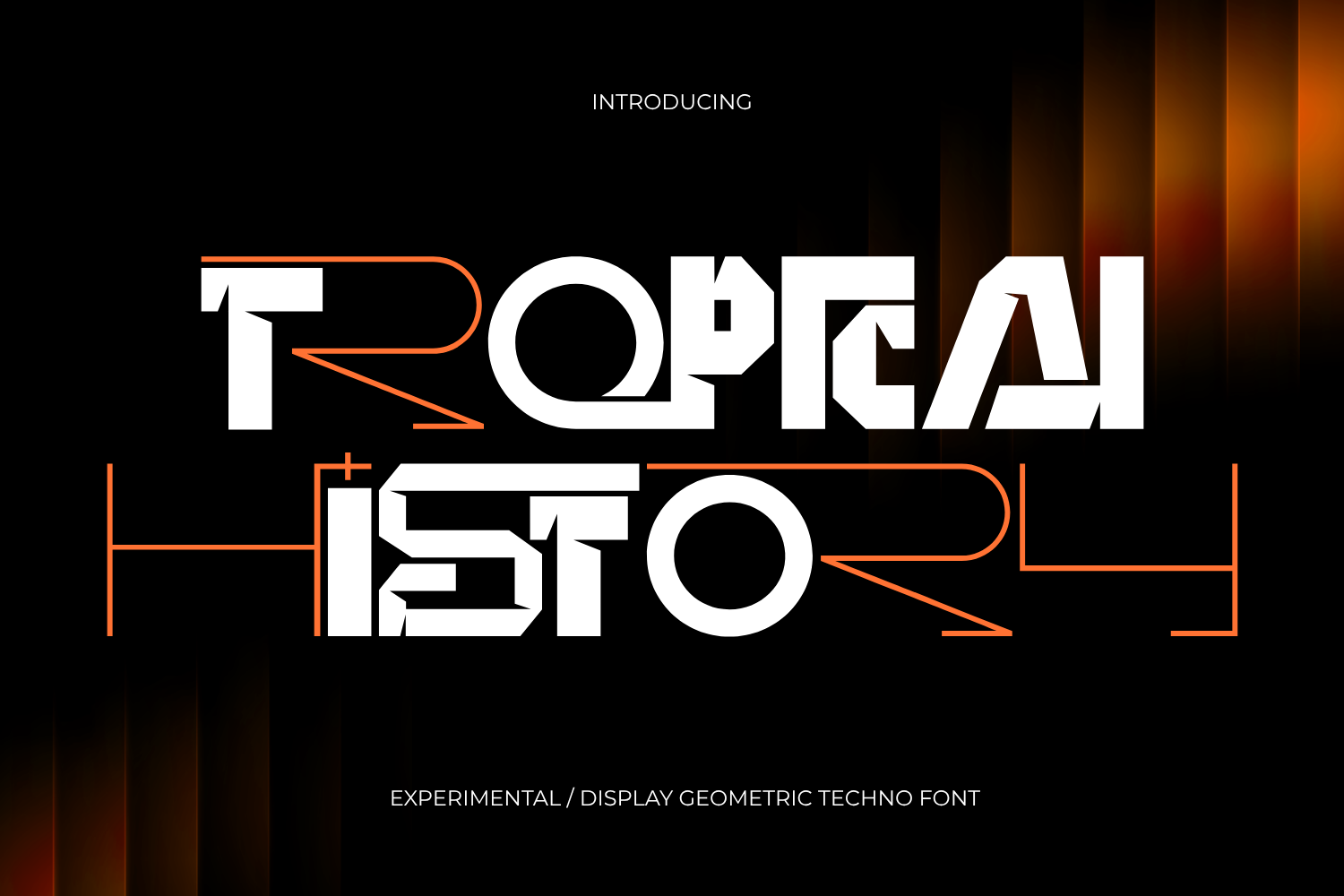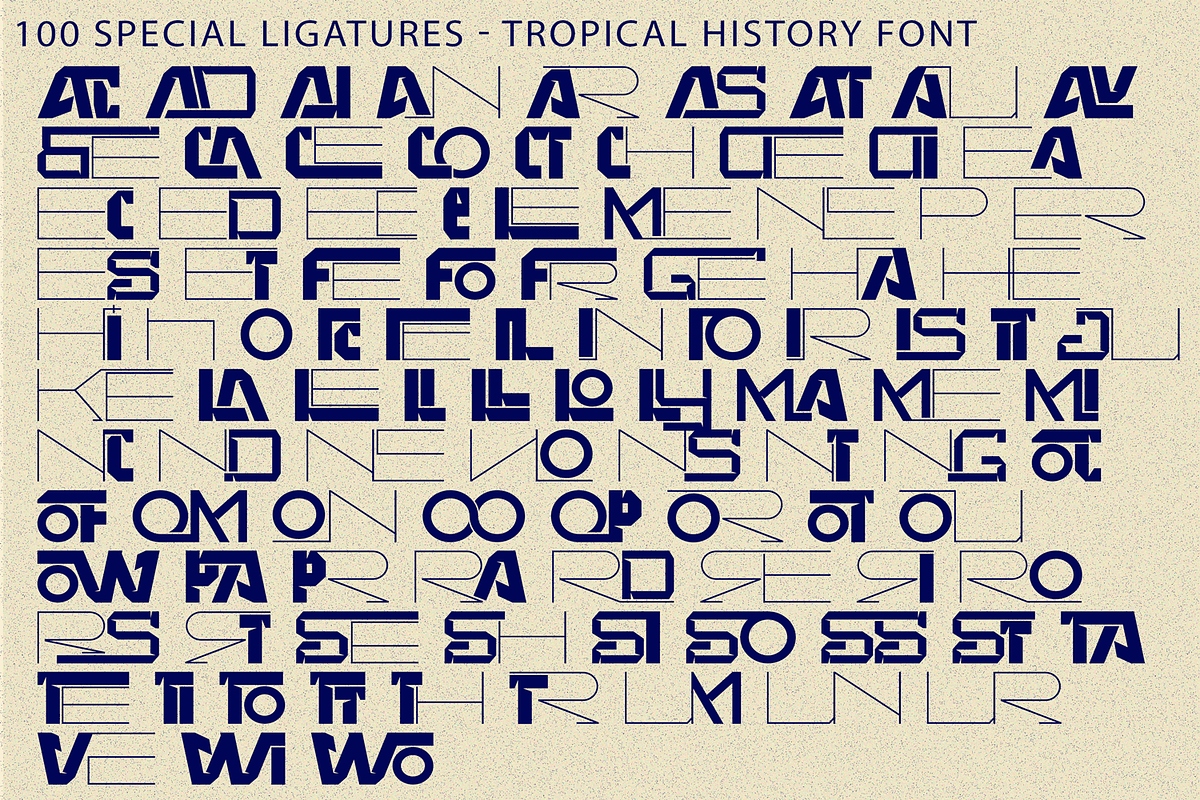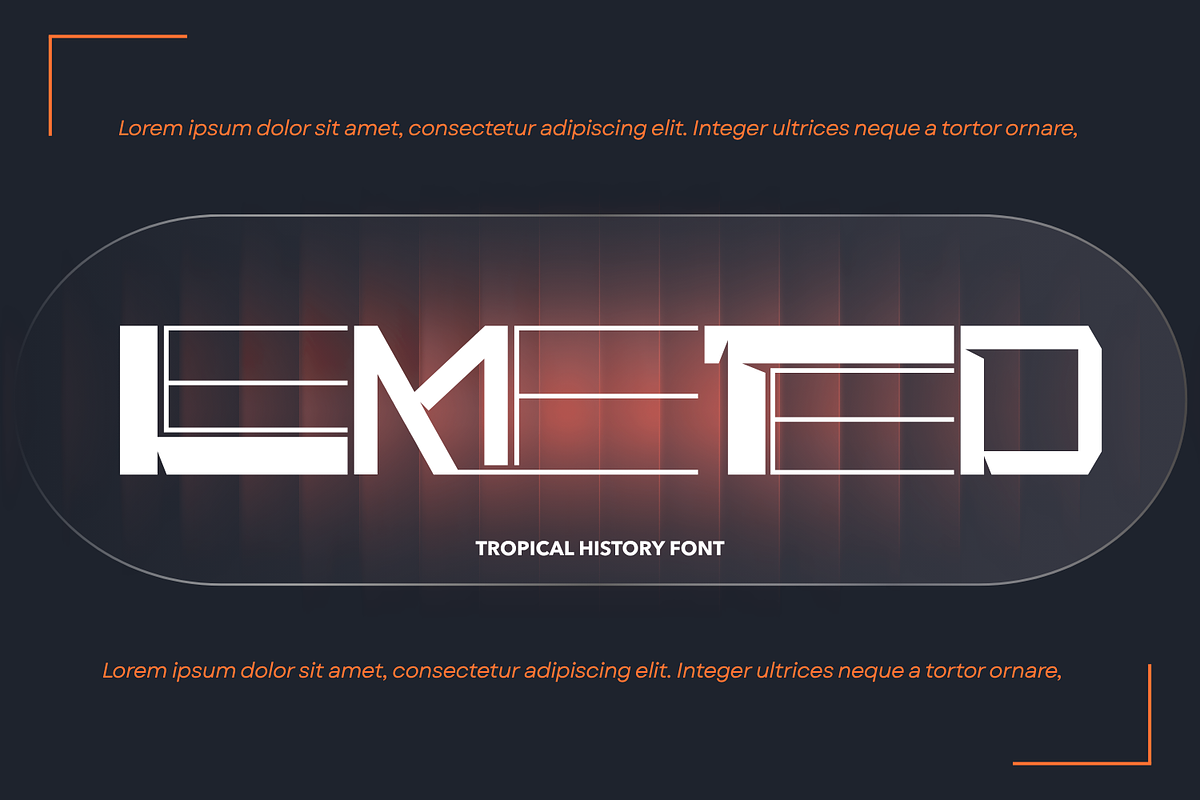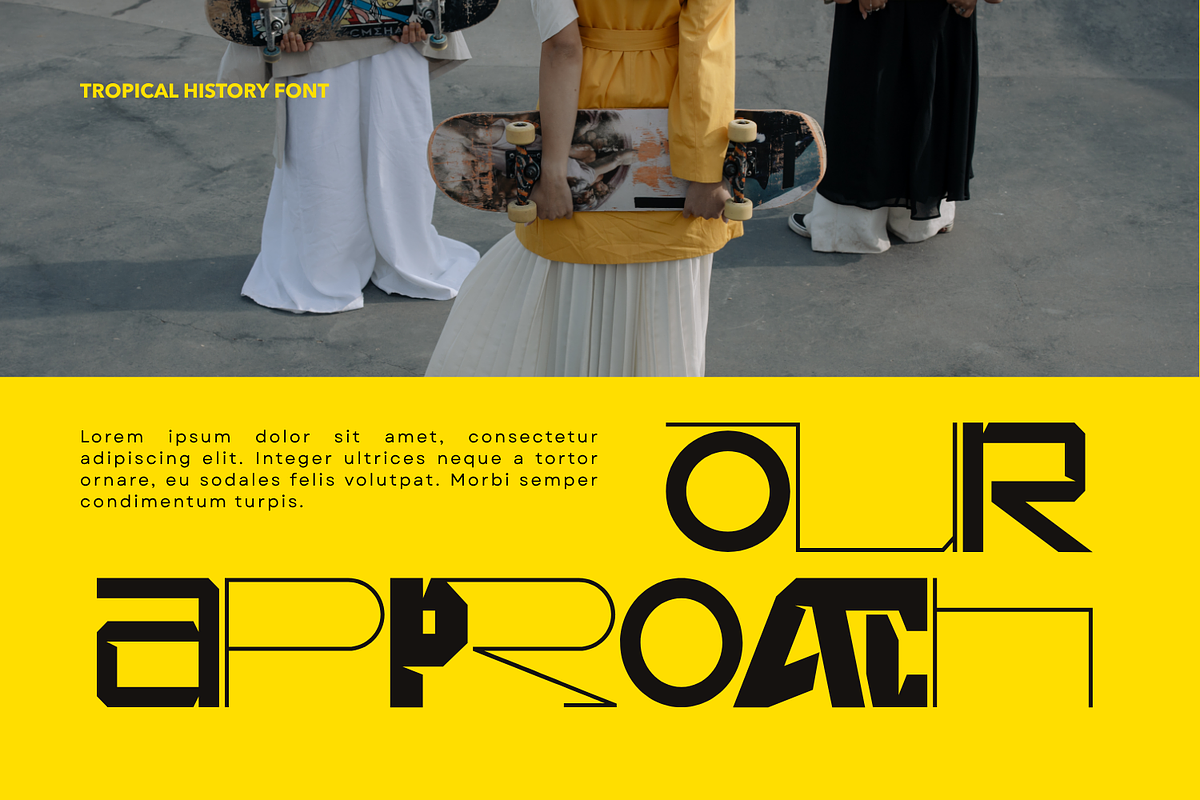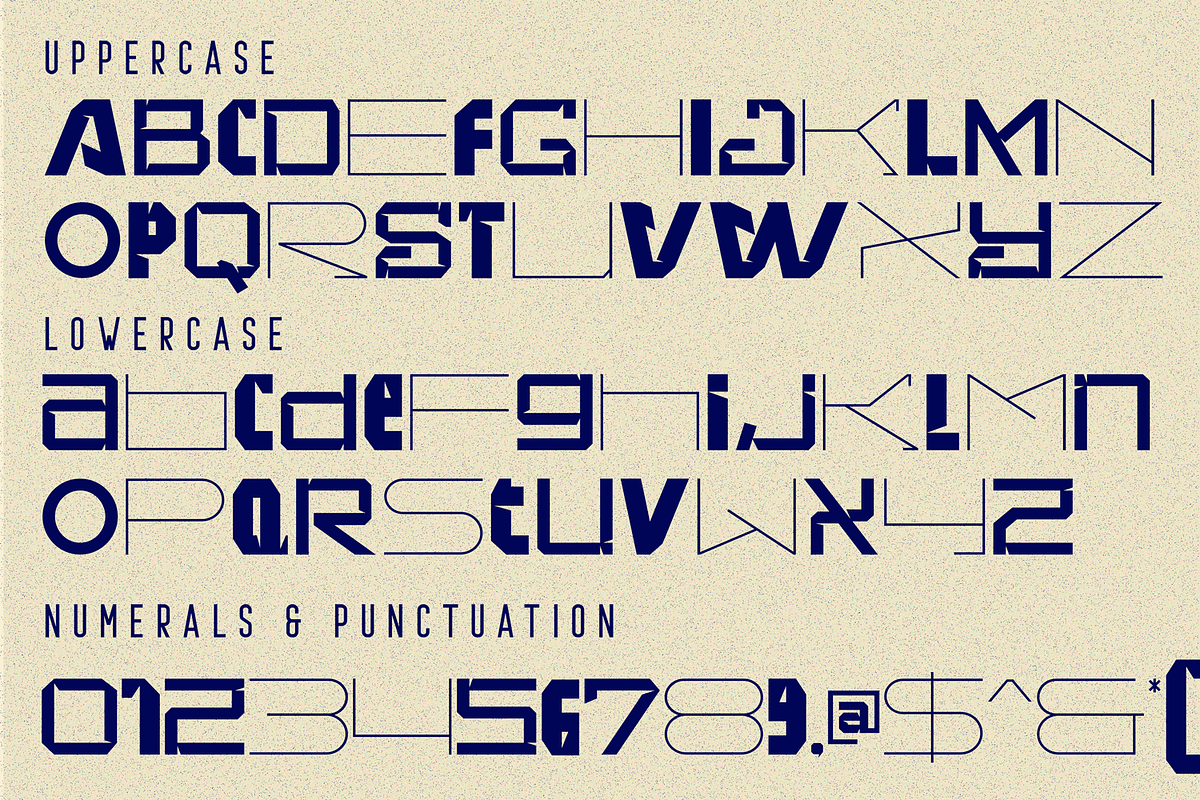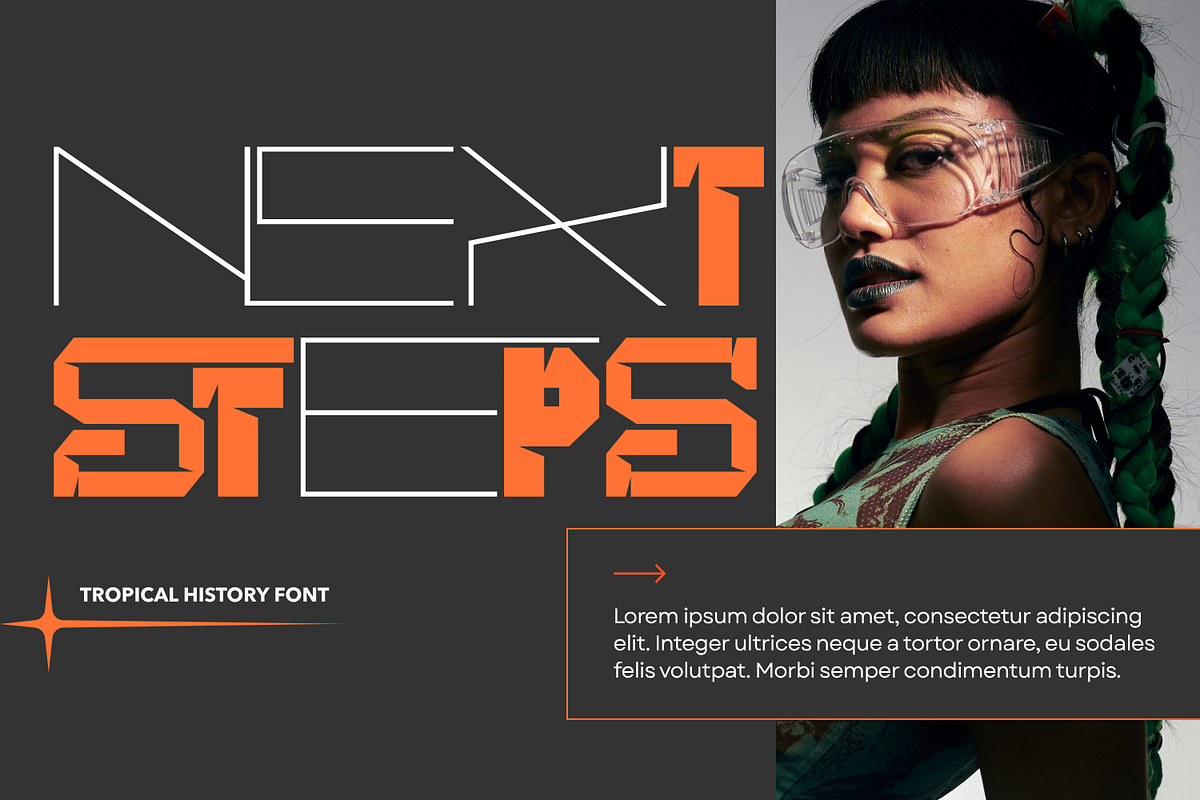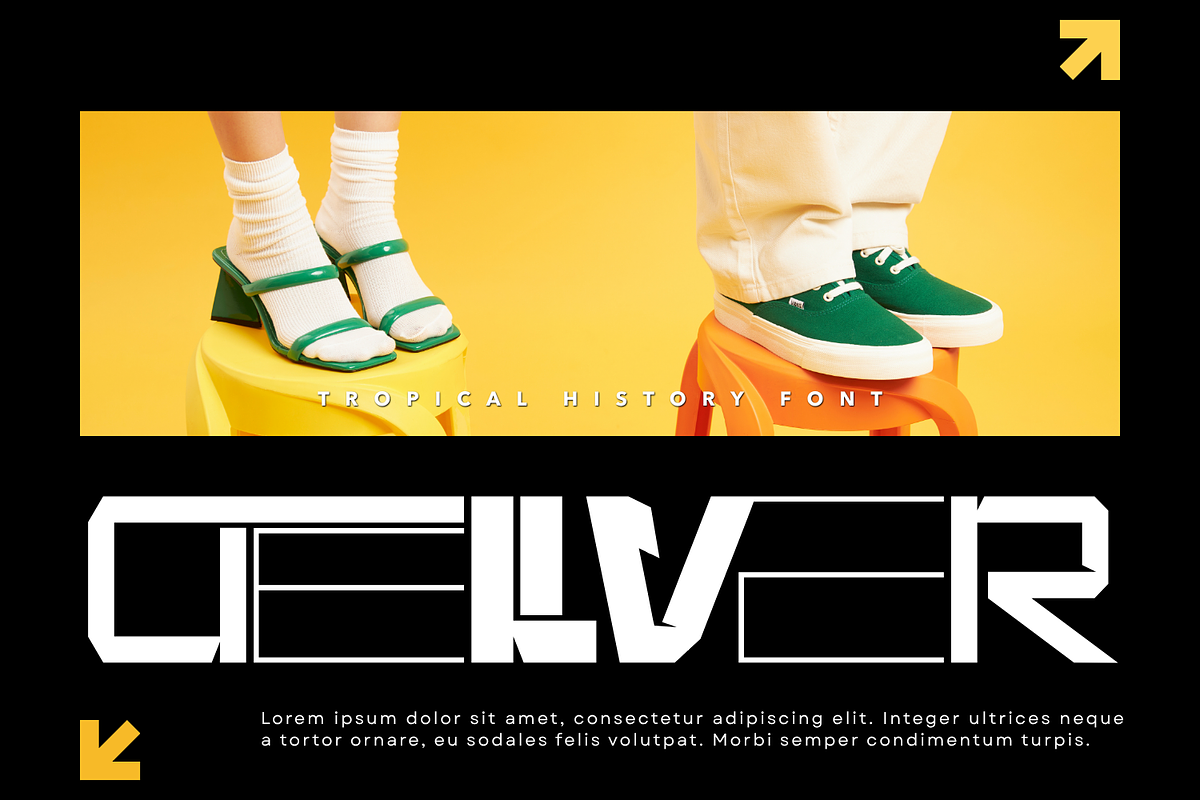
Tropical History - Futuristic Font
Tropical History - Futuristic Font is a futuristic display typeface designed with a bold geometric structure and sharp industrial aesthetics. Inspired by cyberpunk visuals, advanced technology interfaces, and modern sci-fi design, this font combines precise angular forms with clean circular elements to create a striking and highly recognizable identity. Featuring chamfered corners, architectural letterforms, and strong visual balance, Tropical History delivers a powerful technological presence while maintaining excellent readability. Its unique construction evokes the look of digital control panels, robotic systems, and futuristic branding, making every word feel innovative and forward-thinking.
🔤Features:
Uppercase & Lowercase Letters
Around 100 Special Ligatures & Alternates
Accented Characters for multilingual support
🔤About 100 ligatures combined with Stylistic Alternates Font:
ac ad al an ar as at au av be ca ce ch co ct de di ea ec ed ee el em en ep er es et fe fo fr ge ha he hi ho ie ic il in io ir is it ju ke la le li ll lo ly ma me mi nc nd ne ng no nt ns oc of om on oo op or ot ou ow pa pr ra rd re ri ro rs rt se sh si so ss st ta te th ti to tr tt um un ur ve wi wo